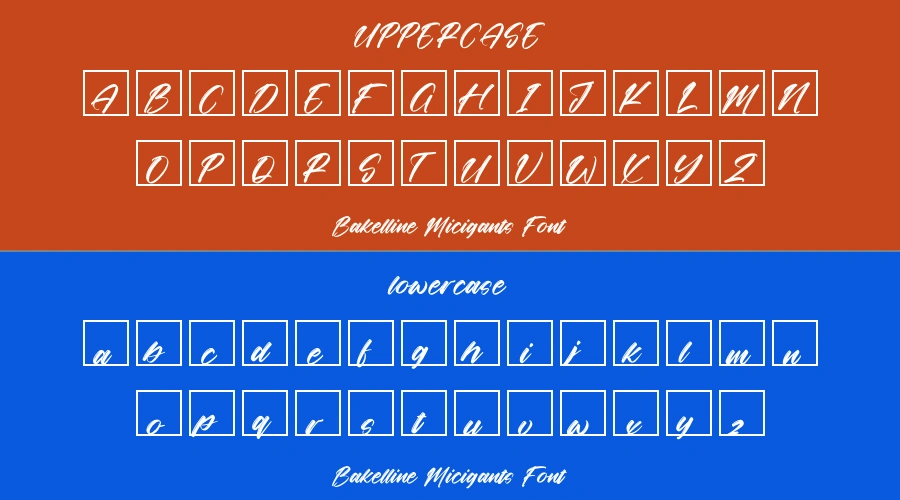
About Bakelline Micigants Font
Designed with precision, Bakelline Micigants Font merges open counters with system consistency in every character. This versatility makes it particularly effective for branding projects, where flexibility and generational appeal directly impact communication quality. Each letterform demonstrates meticulous craftsmanship.
Technical excellence shines through elements like distinctive terminals and case-sensitive forms, enhancing typographic versatility. In data tables settings, Bakelline Micigants Font proves its worth through superior file optimization. The thoughtful execution of joint detail and character ensures professional results.